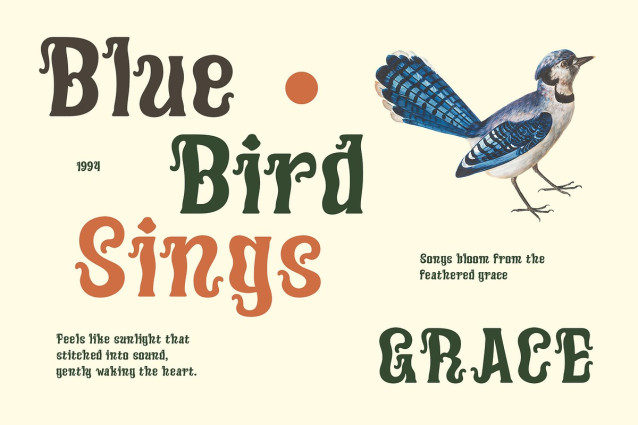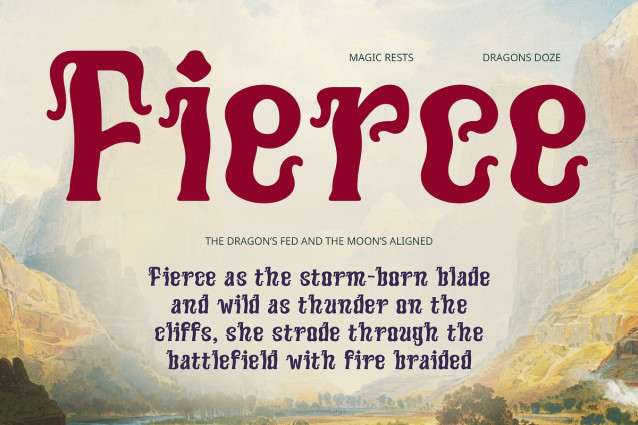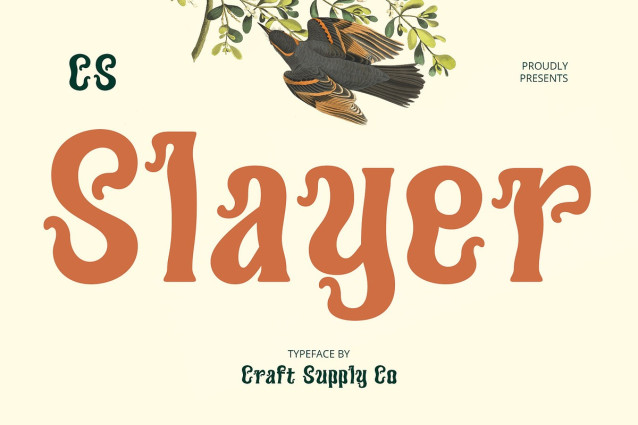
CS Slayer Font
CS Slayer – Fantasy Font is a display font designed to evoke a world of fantasy, magic, and adventure. The font features unique, ornamental letterforms with bold, curved characters that create a sense of grandeur and mysticism. Its intricate design elements make it ideal for projects that require a touch of the fantastical.
Bold, Decorative Letterforms The font’s characters are bold and adorned with distinctive, ornamental flourishes that bring a sense of magical realism to your designs. Each letter is meticulously crafted to offer a dynamic and artistic appearance, making it perfect for eye-catching displays and projects that demand a whimsical, fantasy-inspired aesthetic.
Perfect for Fantasy-Themed Projects Whether it’s for game titles, fantasy novels, or movie posters, CS Slayer Font provides an enchanting, larger-than-life feel. It’s ideal for projects that delve into realms of mythology, fairy tales, and epic adventures, offering an unforgettable look that captures the imagination.
Versatile Yet Striking Despite its elaborate design, CS Slayer Font remains versatile enough to adapt to various uses within the fantasy genre. From album covers to event promotions, the font’s captivating and mystical feel adds an artistic layer that will elevate your creative projects. Let CS Slayer Font bring your fantasy worlds to life with every curve and detail.